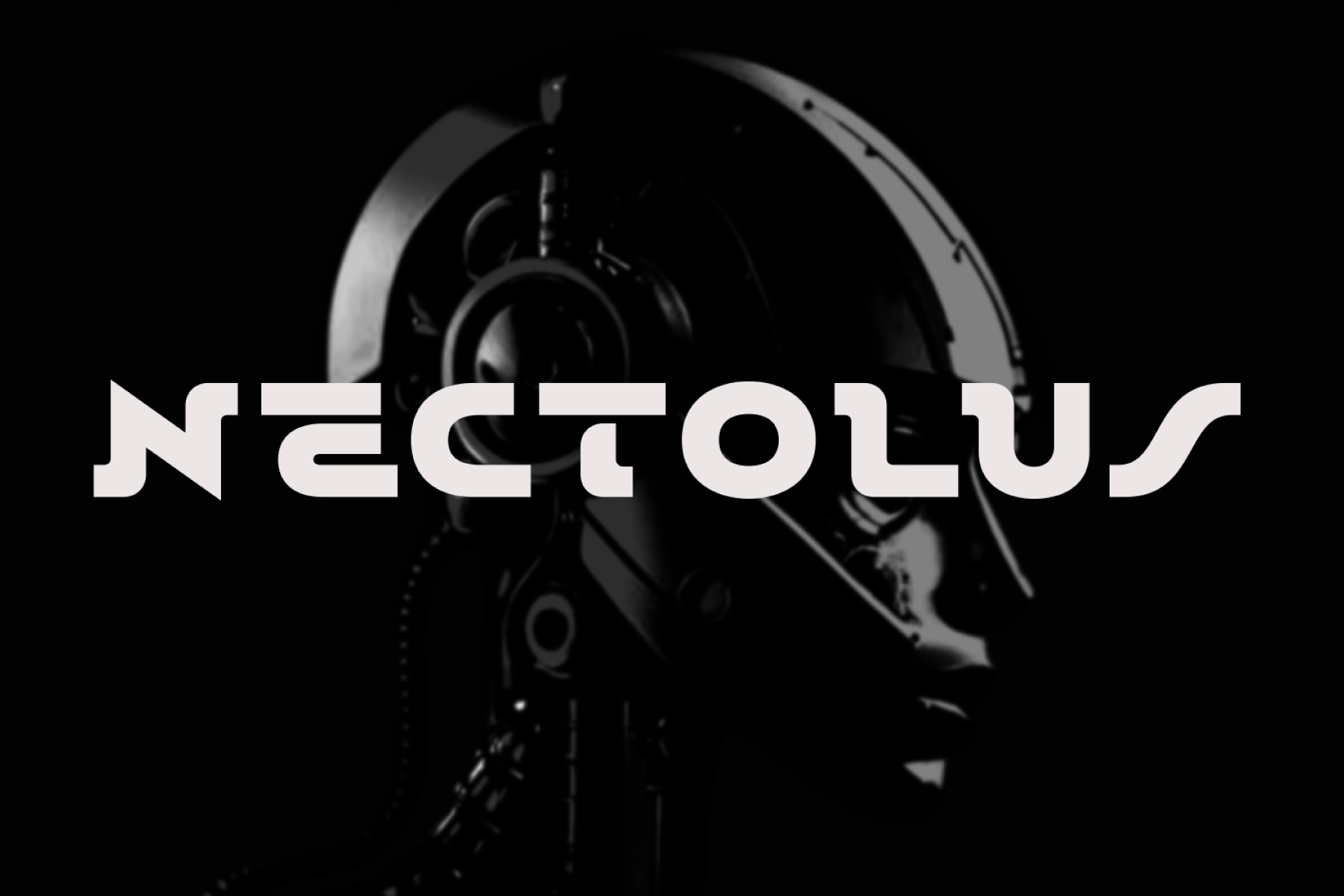
Nectolus - Futuristic Display Font
Nectolus is a bold & dynamic display font with futuristic technology vibes. This font has unique sets of upper & lowercase characters that work together seamlessly.
Mix your characters to create eye catching logos, headlines, advertisements, packaging and marketing content.
Nectolus also includes multilingual characters.